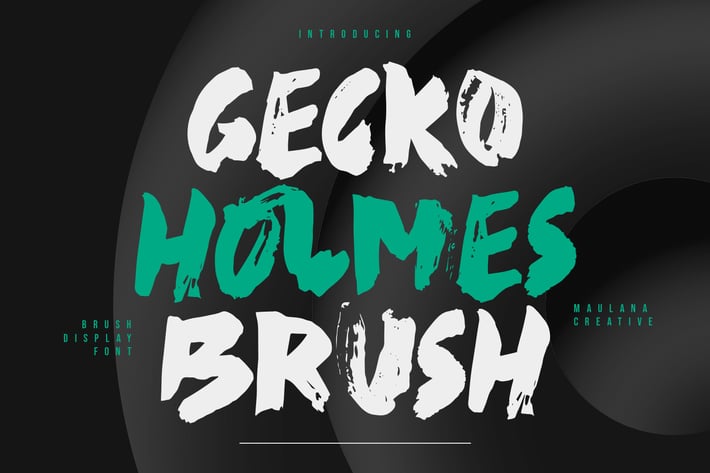
Gecko Holmes Brush Display Font
Gecko Holmes brush font. With three weight stroke, fun character with a bit of ligatures. To give you an extra creative work. Gecko Holmes brush font support multilingual more than 100+ language. This font is good for logo design, Social media, Movie Titles, Books Titles, a short text even a long text letter and good for your secondary text font with sans or serif. Make a stunning work with Gecko Holmes brush font.